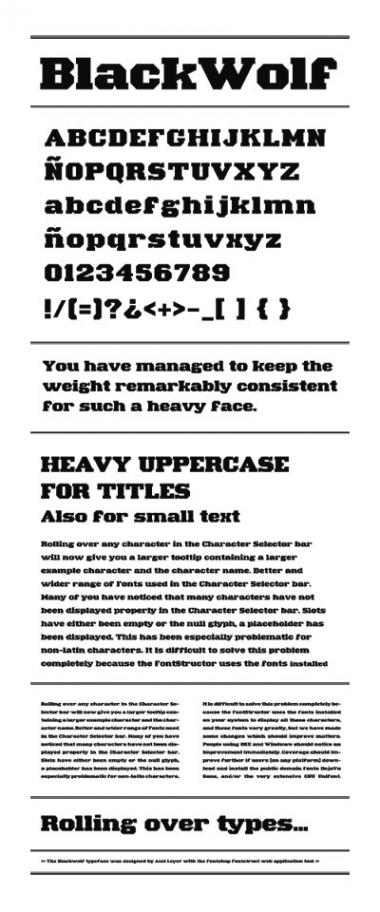
Blackwolf
Axel Leyer
Slab Serif
Heavy
So simple yet so crisp, so nice. Excellent! :) Would love to see you finish it.
I will finish soon, extended alphabet and lowercase...and some other details to improve in wich solution I´m not very satisfied...
You've managed to keep the weight remarkably consistent for such a heavy face. I'm interested to see how you deal with the l/c curveballs.
Wow. Great work, once again!
I´m working now on the lowercase... these are not definitive characters...but need to save. Hope it will finished soon
Finish lowercase